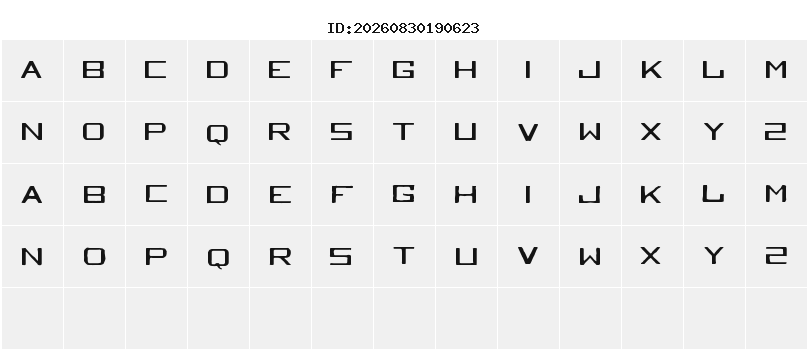
• Font Name: TequilaHeights
• Full Font Name: TequilaHeightsSobriaBorracha
TequilaHeights.ttf is a modern, elegant sans-serif font designed for ultimate readability and visual harmony. Perfect for branding, headlines, web design, and print materials.